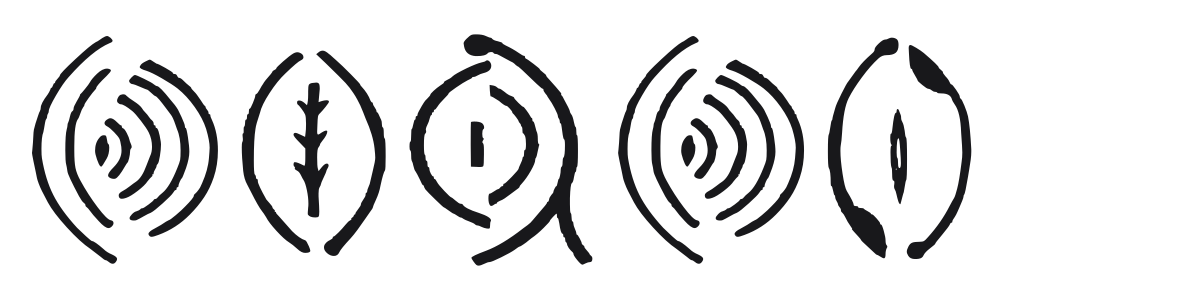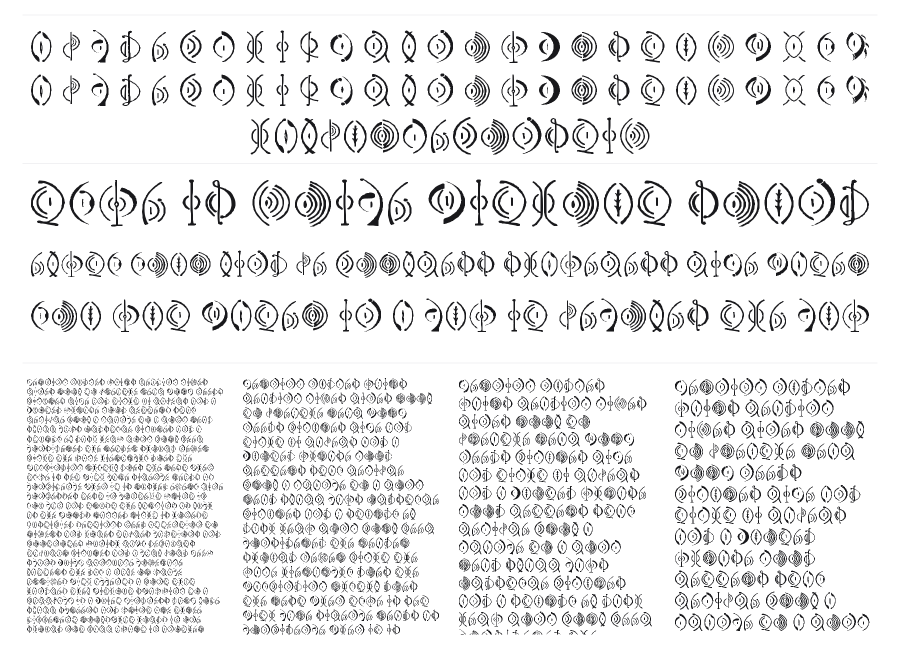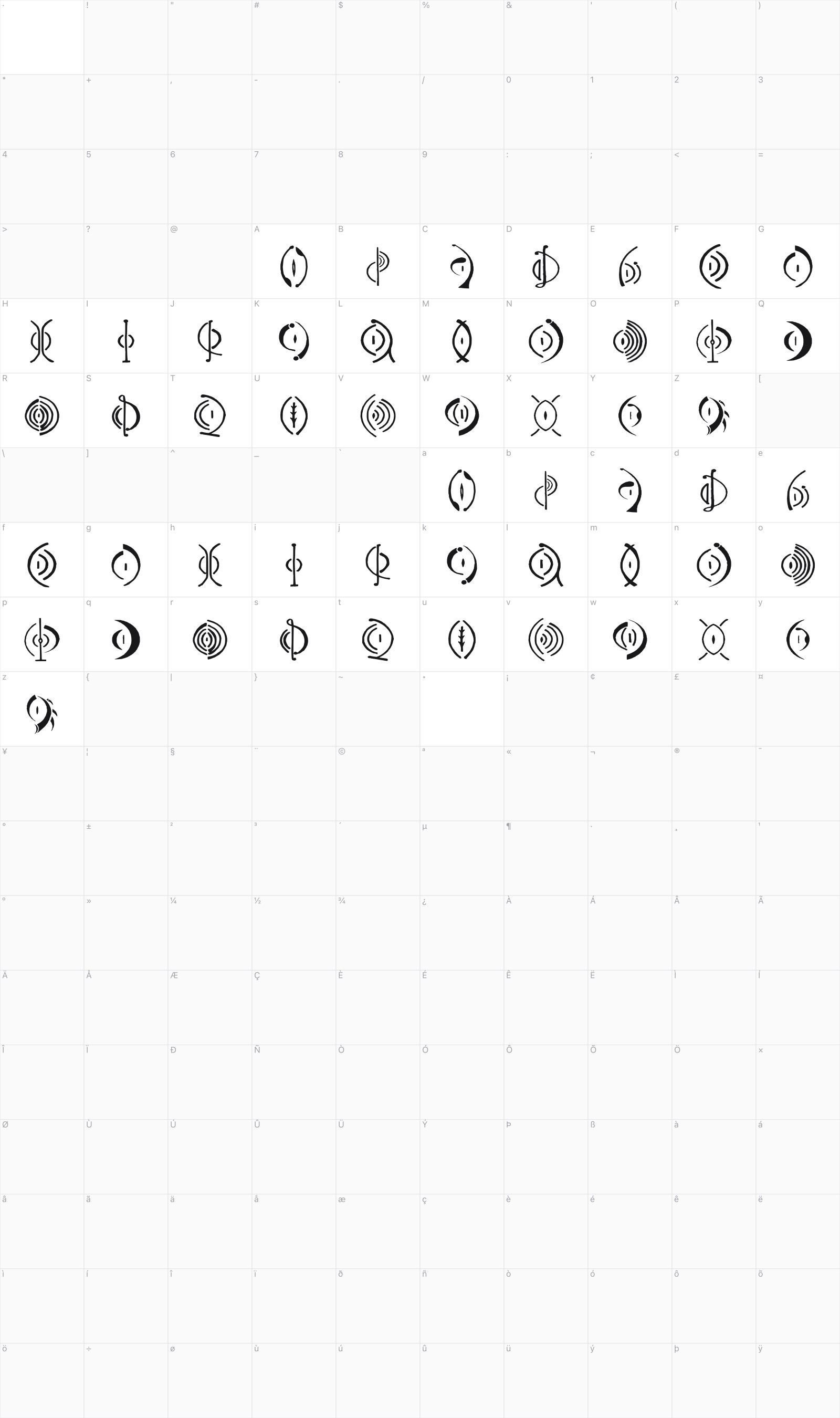
Vulva
Vulva is a dingbat font created as a tribute to the Ariégeois sculptor Claudius de Cap Blanc, whose work is housed at the Musée de l'Affabuloscope in Le Mas-d'Azil. Each glyph is an abstract oval or eye-shaped symbol with intricate internal line patterns evoking carved stone, botanical cross-sections, or ritual iconography. The set reads as a visual alphabet of sculptural forms rather than conventional type.